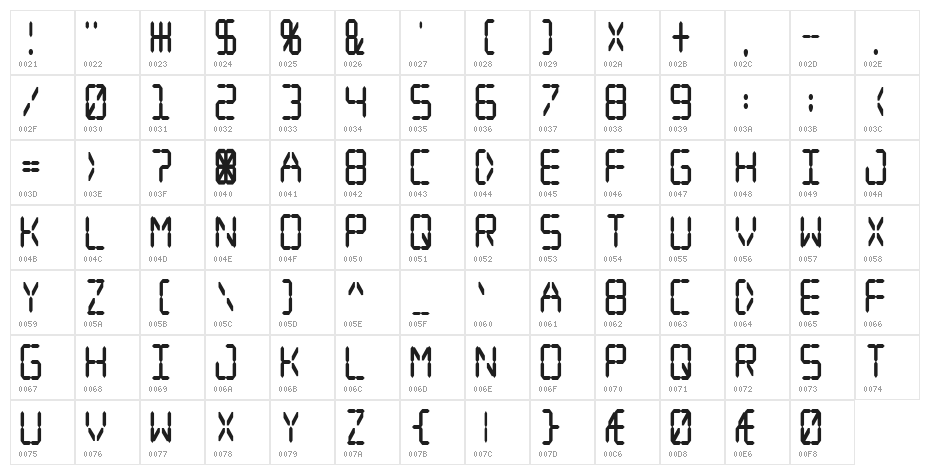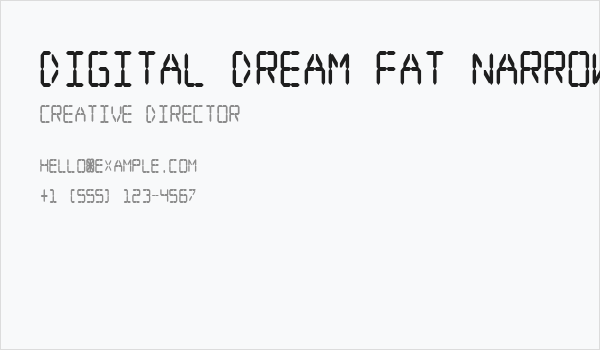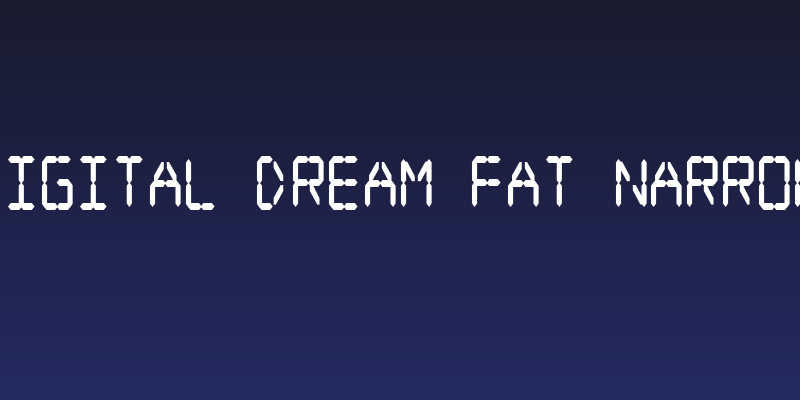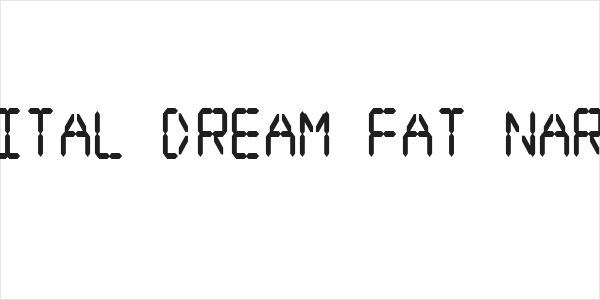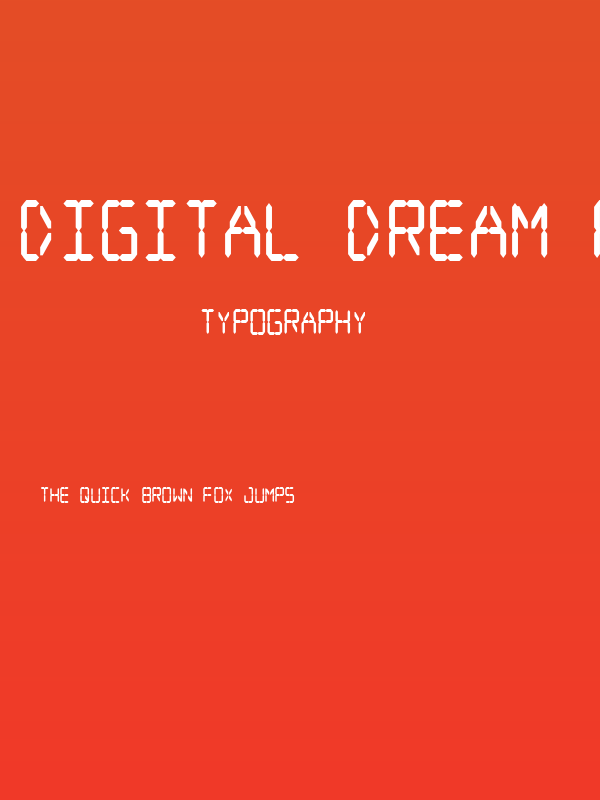
Digital dream Fat Narrow Font
Digital dream Fat Narrow Description
This font features a digital, futuristic style reminiscent of old digital displays and calculators. It has a geometric, blocky appearance with sharp angles and a consistent stroke width, giving it a mechanical and technical feel. The characters are narrow and condensed, optimizing space usage while maintaining legibility. The design is clean and minimalistic, with a uniform height across all characters, enhancing its modern and sleek look. The font's distinct style makes it suitable for digital-themed projects, conveying a sense of technology and innovation.
| Use Case | Headlines, Logos, Digital interfaces |
| Proposed Projects | Ideal for digital displays, tech branding, video game interfaces, and sci-fi themed designs. |